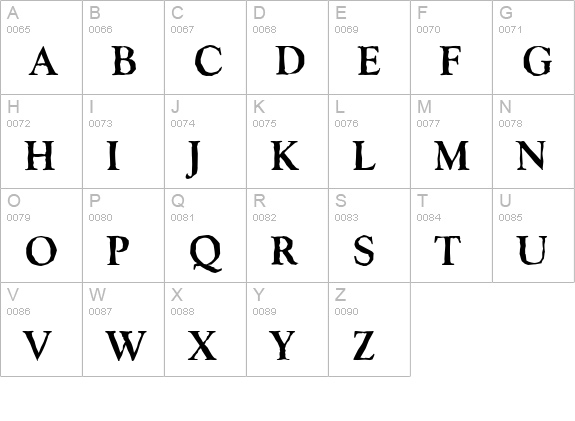
GoudyAntique-Bold is a strong, high-contrast variant in the GoudyAntique typeface family \xE2\x80\x94 well suited to headlines, attention-grabbing titles, and strong calls-to-action.
GoudyAntique-Bold is a timeless and elegant font that exudes sophistication and charm. Its bold and distinctive letterforms make it perfect for making a statement in headlines, titles, and branding materials. The classic design of GoudyAntique-Bold gives a touch of vintage flair while remaining versatile enough to be used in various design projects. Best of all, GoudyAntique-Bold is available for free download at FontsMarket.com, making it easily accessible for designers and creatives looking to add a touch of elegance to their work. Whether you're designing a poster, logo, or invitation, GoudyAntique-Bold is sure to make a lasting impression with its unique style and refined aesthetic. Download this exquisite font today and elevate your designs with its timeless appeal.